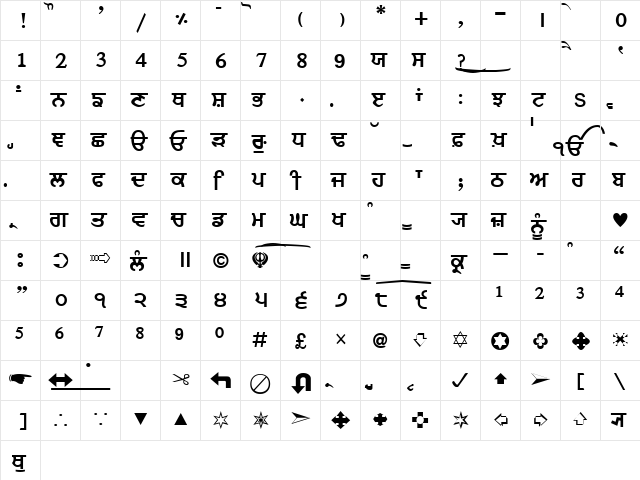
Music2000J Regular Font Preview
Music2000J Regular
Music2000J Regular Font Details
Design Context for Music2000J Typeface
Music2000J takes a measured approach to typography — its balanced proportions and neutral character make it a reliable workhorse for both digital and print work.